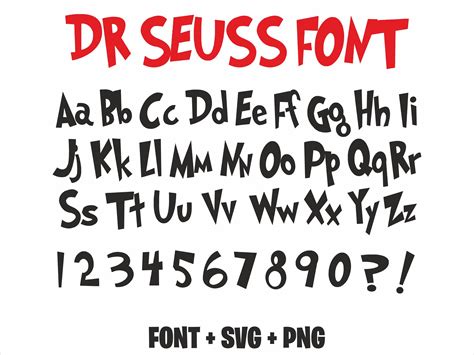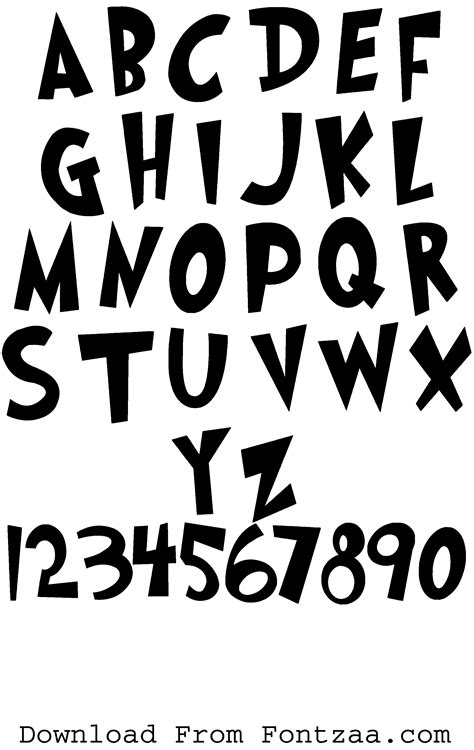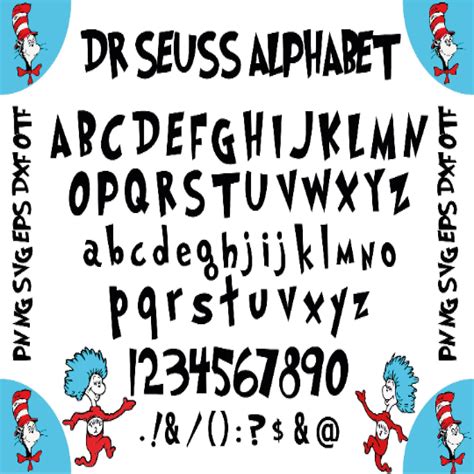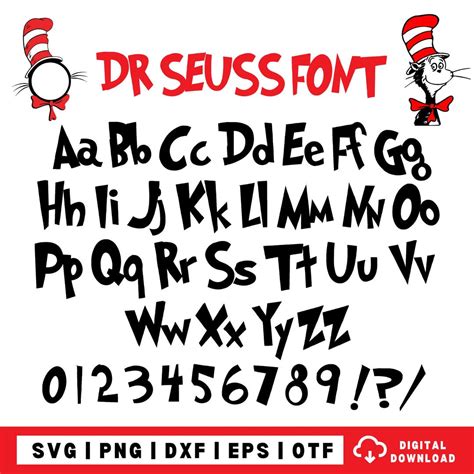
Typography plays a crucial role in design, setting the tone and mood of any project. One font that has captured the hearts of many designers and enthusiasts alike is the Dr Seuss Font. This whimsical and playful typeface is inspired by the iconic illustrations of Dr. Seuss, the beloved children's author known for his imaginative stories and distinctive art style. The Dr Seuss Font brings a sense of nostalgia and fun to any design, making it a popular choice for various creative projects.
Understanding the Dr Seuss Font
The Dr Seuss Font is characterized by its bold, colorful, and slightly irregular shapes, which mimic the hand-drawn style of Dr. Seuss's illustrations. This font is perfect for projects that aim to evoke a sense of childhood wonder and creativity. Whether you're designing a children's book, a playful logo, or a whimsical invitation, the Dr Seuss Font can add a unique and charming touch to your work.
History and Inspiration
The Dr Seuss Font draws its inspiration from the works of Theodor Seuss Geisel, better known as Dr. Seuss. Dr. Seuss was an American children's author, political cartoonist, illustrator, poet, animator, and filmmaker. His books, such as "The Cat in the Hat" and "Green Eggs and Ham," are beloved for their rhyming text and quirky illustrations. The font captures the essence of Dr. Seuss's art style, making it a fitting tribute to his legacy.
Characteristics of the Dr Seuss Font
The Dr Seuss Font is known for several distinctive features:
- Bold and Playful Design: The font features thick, bold lines that give it a strong presence on the page. The playful design elements, such as curved lines and irregular shapes, add to its whimsical appeal.
- Hand-Drawn Style: The font mimics the hand-drawn illustrations of Dr. Seuss, giving it a personal and unique touch. This makes it stand out from more traditional, computer-generated fonts.
- Colorful and Vibrant: While the font itself is typically black and white, its design lends itself well to colorful applications. The bold lines and playful shapes can be easily enhanced with vibrant colors to create eye-catching designs.
- Versatile Use: The Dr Seuss Font can be used in a variety of projects, from children's books and educational materials to logos, invitations, and more. Its versatility makes it a valuable addition to any designer's toolkit.
Using the Dr Seuss Font in Design Projects
The Dr Seuss Font is a versatile typeface that can be used in a variety of design projects. Here are some ideas for incorporating it into your work:
- Children's Books: The font is perfect for children's books, where its playful and whimsical design can enhance the storytelling experience. It can be used for chapter titles, headings, and even the main body text.
- Educational Materials: The Dr Seuss Font can make educational materials more engaging and fun for young learners. It can be used in worksheets, flashcards, and posters to capture children's attention.
- Logos and Branding: For brands that want to convey a sense of fun and creativity, the Dr Seuss Font can be an excellent choice for logos and branding materials. Its bold and playful design can help a brand stand out.
- Invitations and Greeting Cards: The font can add a whimsical touch to invitations and greeting cards, making them more memorable and enjoyable to receive.
- Packaging Design: The Dr Seuss Font can be used in packaging design to create eye-catching and playful labels for products aimed at children or families.
Tips for Effective Use of the Dr Seuss Font
To make the most of the Dr Seuss Font in your design projects, consider the following tips:
- Pair with Complementary Fonts: The bold and playful design of the Dr Seuss Font can be balanced with more traditional, serif fonts for body text. This creates a harmonious contrast that enhances readability.
- Use Color Wisely: While the font itself is typically black and white, adding vibrant colors can enhance its playful appeal. Choose colors that complement the overall design and theme of your project.
- Keep It Simple: The Dr Seuss Font is best used sparingly to avoid overwhelming the design. Use it for headings, titles, and key phrases, and pair it with simpler fonts for the main body text.
- Consider the Audience: The font is particularly well-suited for projects aimed at children and families. Consider the age and interests of your target audience when deciding whether to use the Dr Seuss Font.
Examples of the Dr Seuss Font in Action
To get a better idea of how the Dr Seuss Font can be used in design projects, let's look at some examples:
| Project Type | Usage | Example |
|---|---|---|
| Children's Book | Chapter Titles and Headings | Imagine a children's book where each chapter title is written in the Dr Seuss Font, with the main body text in a simpler, more readable font. This creates a fun and engaging reading experience. |